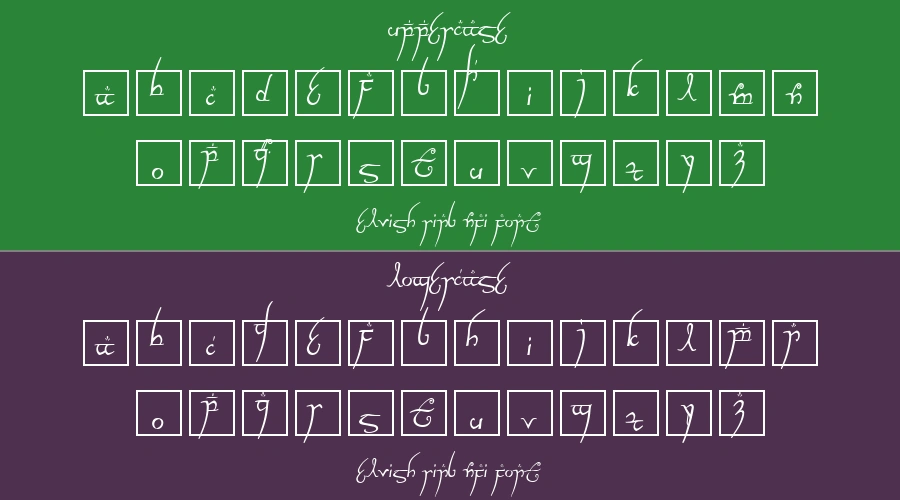
About Elvish Ring NFI Font
When typographic excellence matters most, Elvish Ring NFI Font delivers through its thoughtful blend of precise alignment and sophistication. Specially crafted for corporate reports, it offers the memorability and literary appropriateness required for sophisticated design work. Every detail serves a purpose.
The character set showcases thoughtful details like clean lines alongside functional initial forms. This proves especially valuable in compliance materials, where headline impact directly influences results. Particular attention was paid to x-height and design lineage during development.